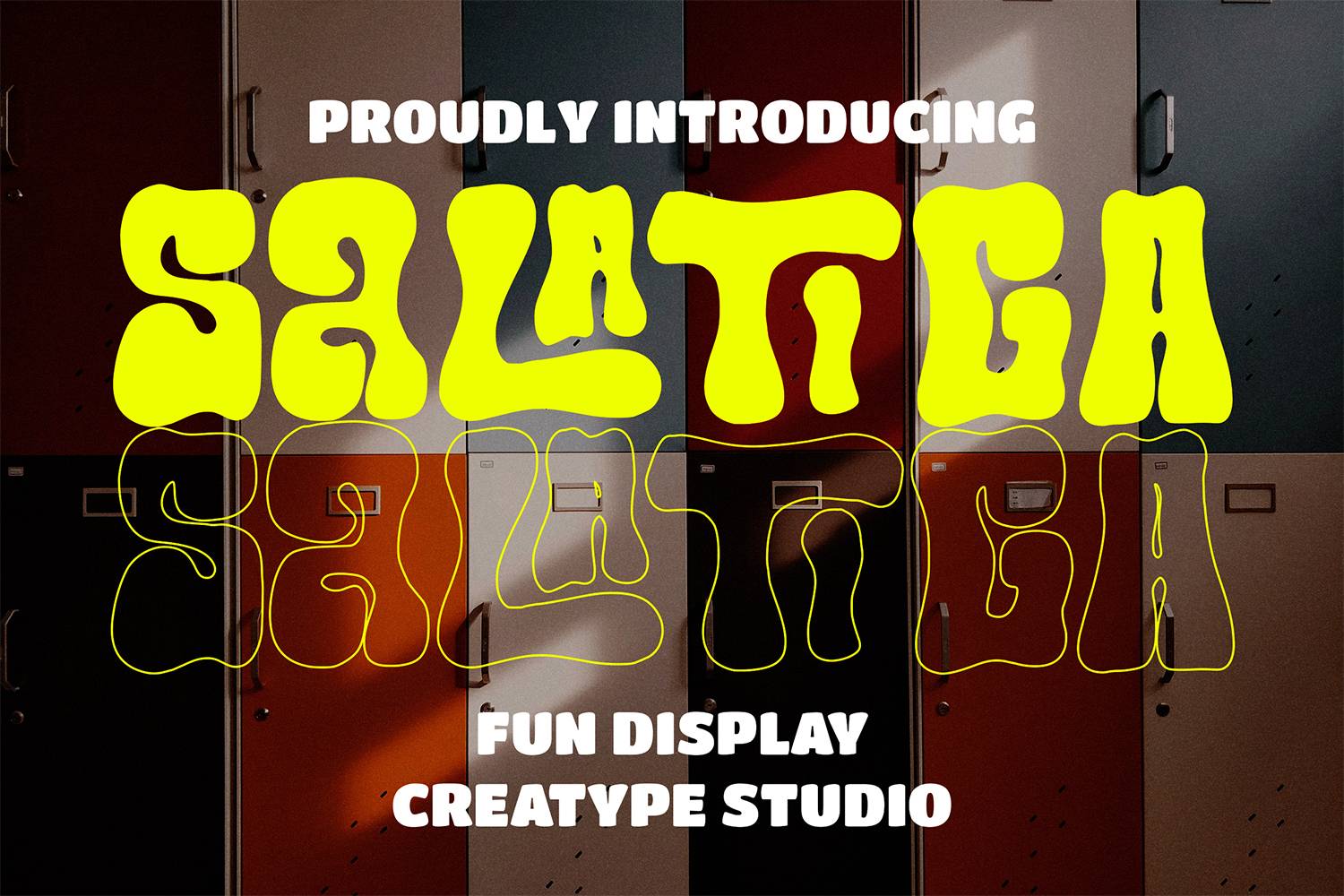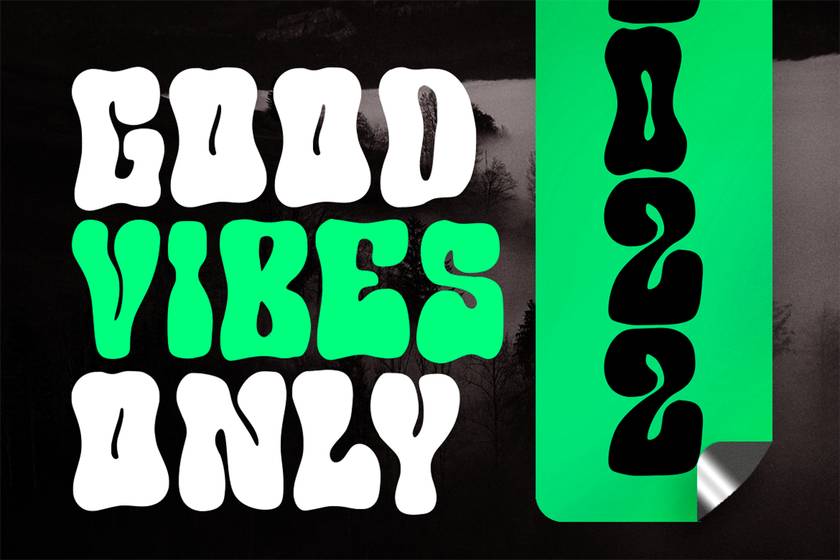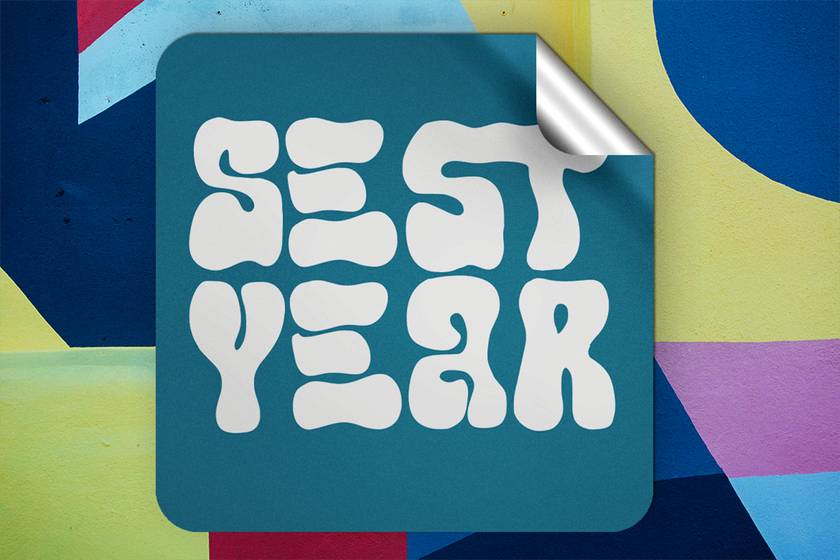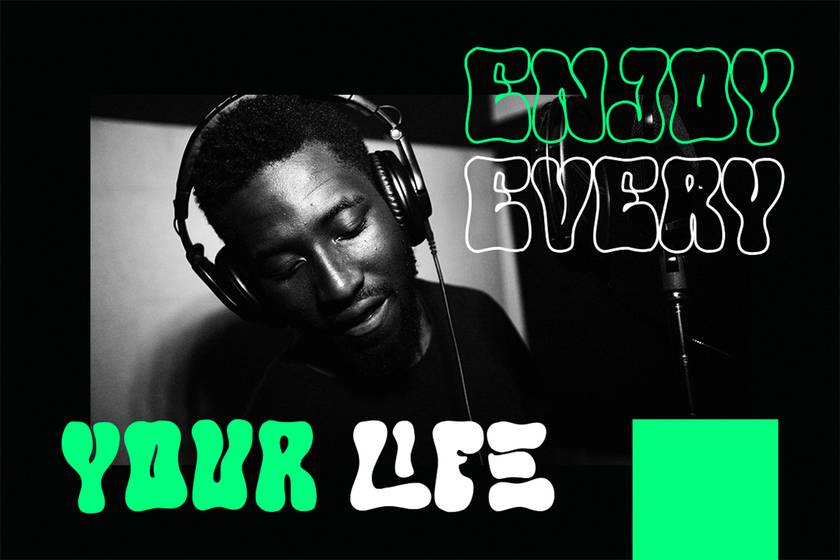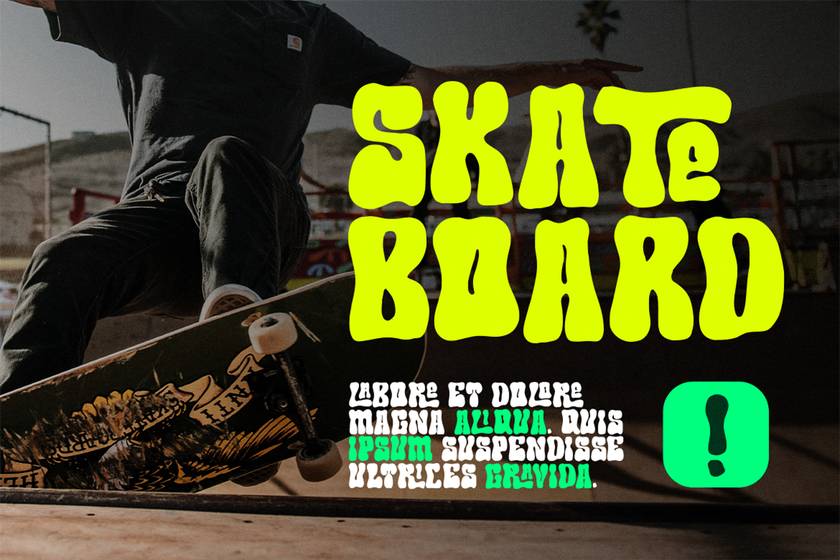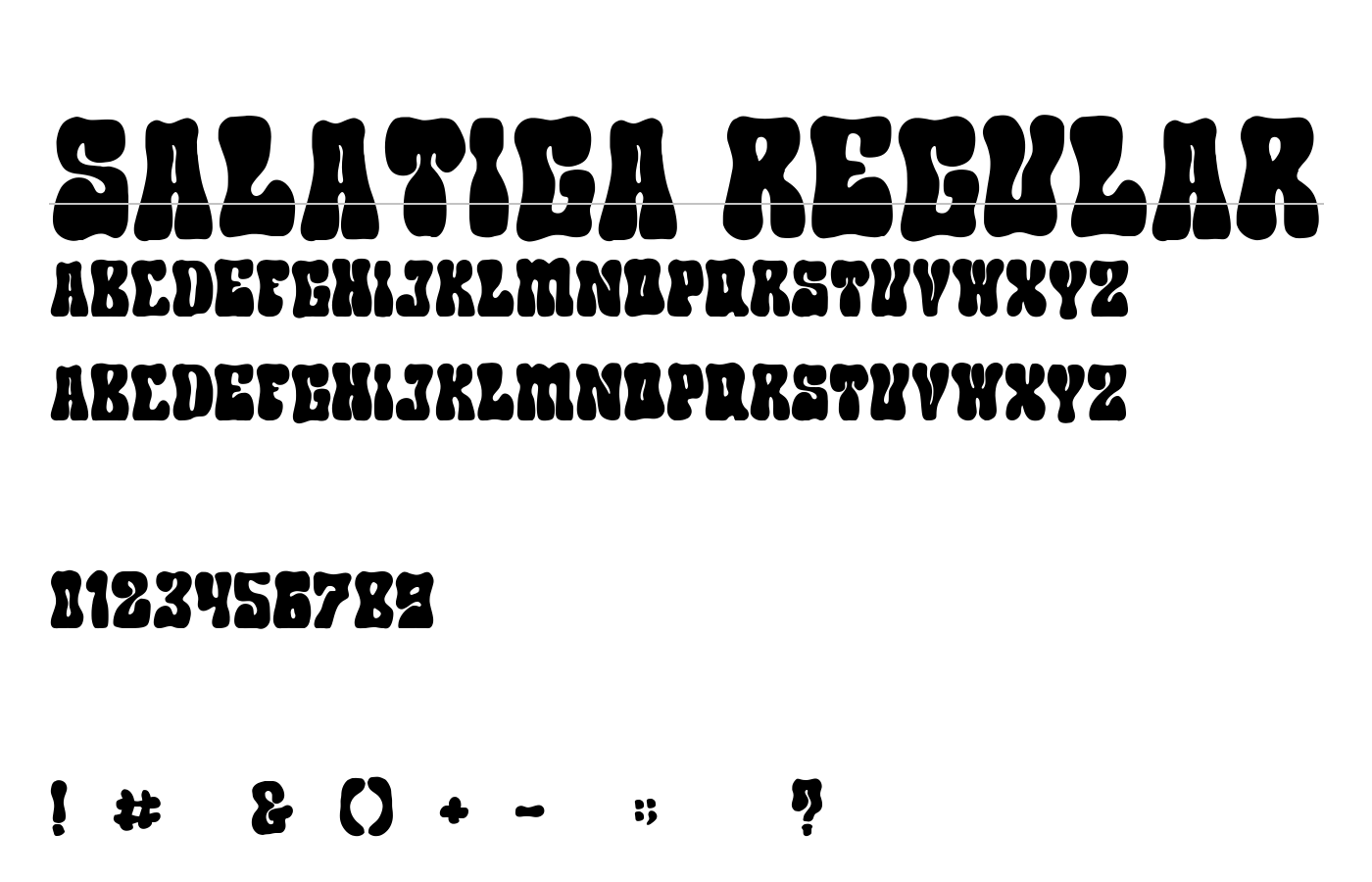
Salatiga is a bold, playful display font with a chunky, condensed silhouette and uneven edges that give it a hand-crafted, quirky vibe. Its heavy weight and distinctive shapes make it ideal for eye-catching headlines, logos, or posters where a fun and informal style is needed. This font works best in creative, casual contexts where a strong personality and lively energy help brands stand out.
Salatiga Font
About Salatiga Font
| Font family | Salatiga Font |
| Release date | 2021-07-29 |
| Designer | Mikro Type Std |